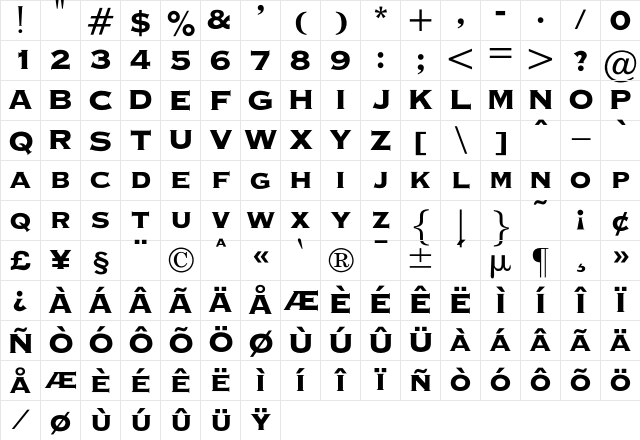
OPTICopperplate Heavy Free Font
OPTICopperplate Heavy
OPTICopperplate Heavy Family
OPTICopperplate Heavy
Design Context for OPTICopperplate
OPTICopperplate is a composed and adaptable typeface that performs quietly and consistently across a wide range of design contexts.